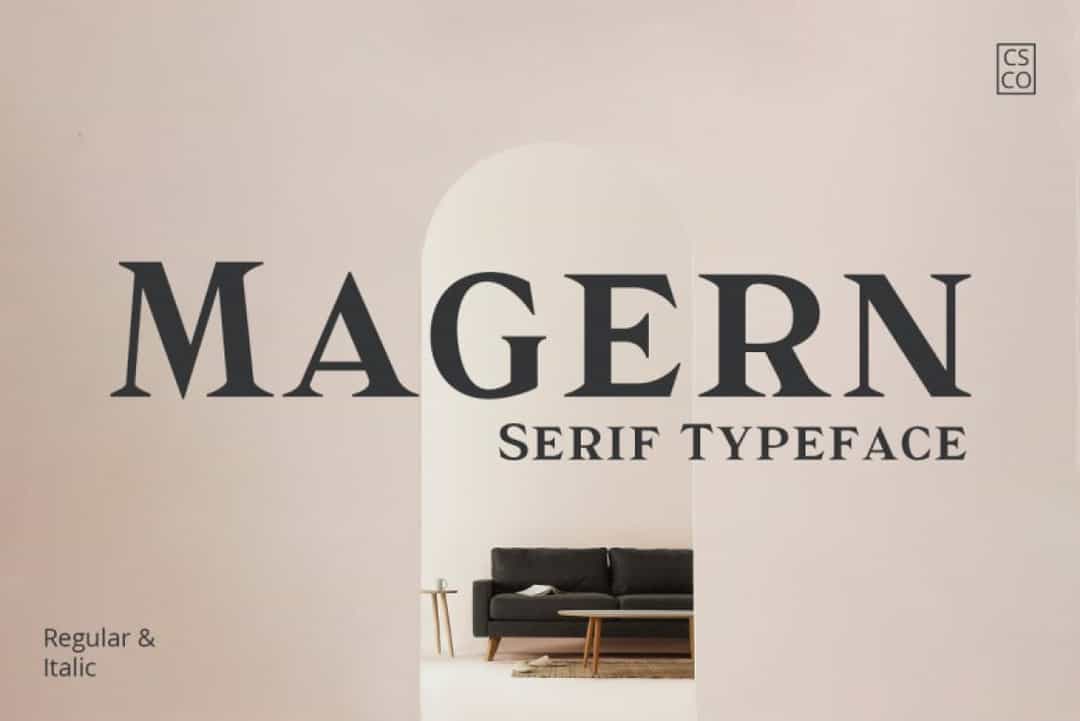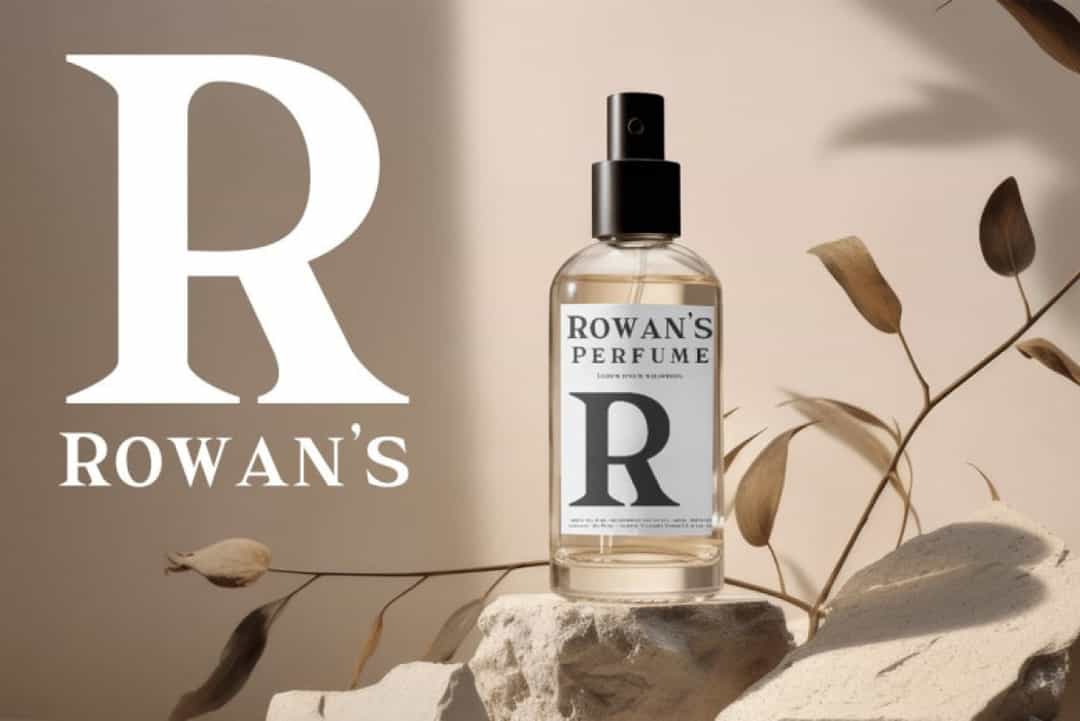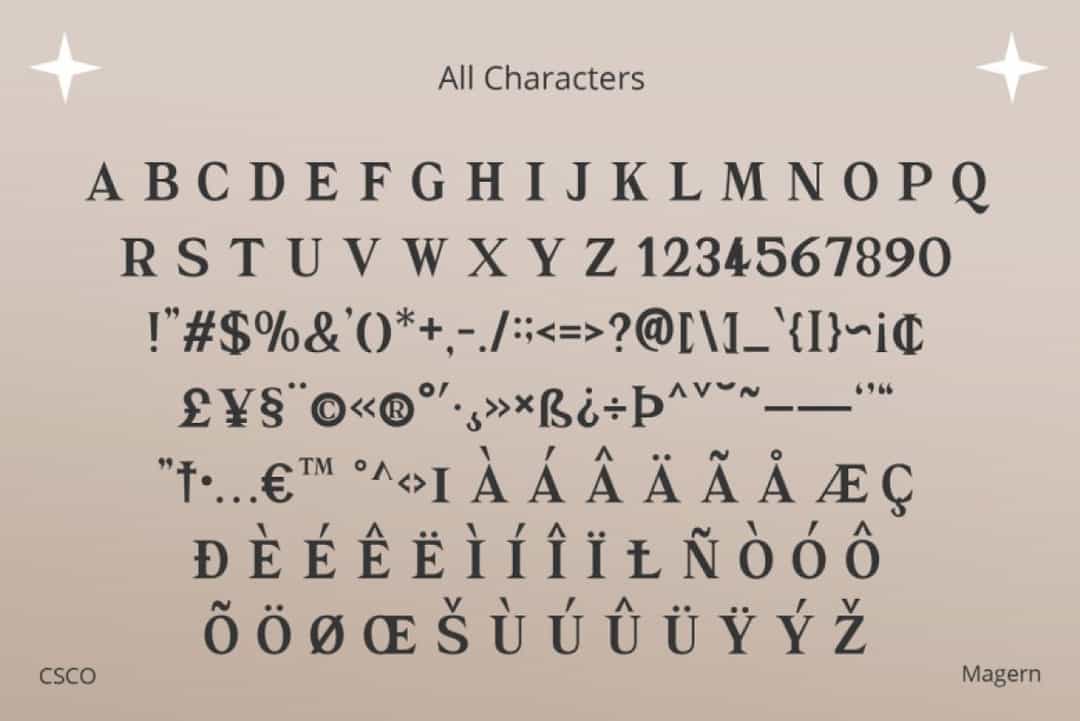
Magern, our new serif font, stands out for both elegance and versatility. Carefully designed by Design in Design to complement various magazine and editorial layouts seamlessly, Magern stands out with its versatility as an eye-catching font with beautiful craftsmanship that stands the test of time. It will bring sophistication and readability to all types of publications with ease. Creating Magern was no small task! The craftsmanship behind Magern is evident as its workmanship is exceptional.